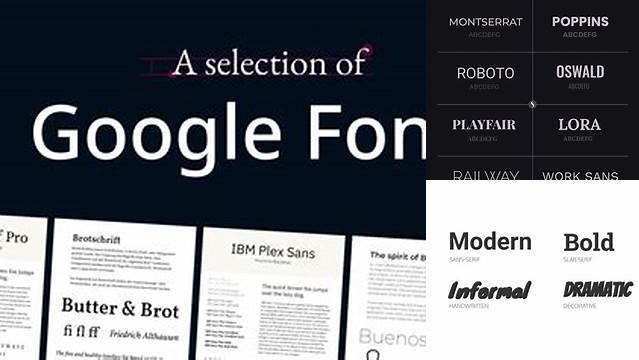
Best Google Fonts For Logos: Top Picks & Tips
Introduction: The Power of Typography in Logo Design
When it comes to logo design, the typography you choose plays a pivotal role in shaping your brand's identity. It's not just about selecting a font that looks pretty; it's about choosing a typeface that communicates your brand's personality, values, and message. Think of your logo as the face of your company, and the font as the expression on that face. A well-chosen font can convey professionalism, creativity, trustworthiness, or any other attribute you want your brand to embody. A poorly chosen font, on the other hand, can send the wrong message, confuse your audience, or even make your brand look unprofessional. So, guys, making the right font choice is super crucial for making a killer first impression and building a strong brand identity.
In today's digital age, Google Fonts has emerged as a treasure trove of high-quality, free-to-use fonts, making it an invaluable resource for designers and businesses alike. With hundreds of fonts to choose from, it can be overwhelming to sift through the options and find the perfect fit for your logo. But don't worry, we've got your back! This guide is designed to help you navigate the world of Google Fonts and discover some of the best typefaces for logo design. We'll explore a variety of font styles, from classic serifs to modern sans-serifs, and provide insights on how to use them effectively in your logo. Whether you're a seasoned designer or just starting out, this guide will equip you with the knowledge and inspiration you need to create a logo that truly represents your brand. We'll break down what makes a font great for logos, and then we'll dive into some specific examples that you can use for your own projects. Get ready to level up your logo game!
Choosing the right font involves considering several factors, including your brand's identity, target audience, and the overall aesthetic you want to achieve. For instance, a tech company might opt for a sleek, modern sans-serif font to convey innovation and simplicity, while a traditional law firm might prefer a classic serif font to project trustworthiness and authority. The font should also be legible and scalable, ensuring it looks good both on a large billboard and a small business card. Furthermore, you need to think about how the font pairs with other design elements, such as your logo's icon and color palette. A harmonious combination of these elements will create a cohesive and memorable brand identity. So, it's not just about picking a font you like; it's about picking a font that works for your brand and its unique needs.
Understanding Font Styles: Serif, Sans-Serif, and More
Before we dive into specific font recommendations, let's take a quick look at the different font styles you'll encounter in Google Fonts. Understanding the characteristics of each style will help you narrow down your options and make informed decisions for your logo design. The two primary categories are serif and sans-serif fonts. Serif fonts are characterized by the small decorative strokes (serifs) that extend from the ends of the letters. These fonts often convey a sense of tradition, elegance, and authority. Think of classic brands like The New York Times or Times New Roman – they exude a sense of history and credibility, right? Serif fonts are generally a solid pick for brands that want to project a sense of heritage or sophistication.
On the other hand, sans-serif fonts lack these serifs, resulting in a cleaner, more modern appearance. They're often associated with simplicity, clarity, and innovation. Brands like Google and Spotify use sans-serif fonts to convey their tech-forward, user-friendly approach. If your brand is all about being modern and accessible, a sans-serif font might be your go-to. But there's more to it than just these two categories, guys. There are also script fonts, which mimic handwriting and add a touch of personality and creativity. These are fantastic for brands that want to feel more personal and handcrafted, but they can be tricky to use in logos because they aren't always as legible at smaller sizes. Then there are display fonts, which are super stylized and designed to grab attention. Think of them as the showstoppers of the font world! Display fonts are great for making a statement, but you have to use them sparingly – they're not always the best choice for the main text of your logo.
Beyond these main categories, there are also variations within each style. For example, serif fonts can range from classic Old Style serifs to more contemporary slab serifs, each with its own unique personality. Sans-serif fonts can be geometric, humanist, or grotesque, each offering a different feel. Geometric sans-serifs are very clean and modern, while humanist sans-serifs have a bit more warmth and personality. Grotesque sans-serifs are the workhorses – reliable and clear. Understanding these nuances will help you fine-tune your font selection and ensure your logo accurately reflects your brand's identity. It's like picking the right tool for the job – understanding what each font brings to the table is the first step to a killer logo.
Top Google Fonts for Logos: Our Recommendations
Now that we've covered the basics of font styles, let's dive into some specific Google Fonts that are particularly well-suited for logo design. We've curated a list of fonts that offer a balance of aesthetics, legibility, and versatility, ensuring they can work across a wide range of industries and brand identities. Our first pick is Montserrat, a geometric sans-serif font that exudes modernity and sophistication. It's incredibly versatile, working well for tech startups, creative agencies, and everything in between. Its clean lines and balanced proportions make it highly legible, even at small sizes, which is crucial for logo design. Montserrat is like the Swiss Army knife of fonts – it can handle anything you throw at it!
Next up is Oswald, another sans-serif font that offers a slightly more condensed and impactful appearance. Oswald is great for logos that need to make a bold statement, such as sports brands or fitness companies. Its strong, assertive letterforms convey confidence and energy. But don't think it's only for the sporty types – Oswald also works well for any brand that wants to project strength and reliability. If you want your logo to pack a punch, Oswald is a fantastic choice. For those seeking a more classic and elegant feel, Playfair Display is an excellent serif option. This font has a high contrast between thick and thin strokes, giving it a sophisticated and refined look. It's perfect for luxury brands, fashion labels, or any business that wants to convey a sense of timeless elegance. Playfair Display is like the little black dress of fonts – always stylish and always appropriate.
If you're looking for something a bit more unique and playful, Poppins is a geometric sans-serif that offers a friendly and approachable vibe. Its rounded letterforms and clean lines make it a great choice for brands that want to appear welcoming and accessible. Poppins is like that friendly neighbor who always has a smile – it just makes you feel good! And lastly, we have Roboto, a widely used sans-serif font that strikes a perfect balance between modernity and readability. It's a versatile workhorse that works well in a variety of contexts, making it a reliable choice for any logo. Roboto is like the dependable friend you can always count on – it's never going to let you down. These are just a few examples, of course, and Google Fonts has tons of other great options. The key is to explore and experiment until you find the perfect fit for your brand!
Font Pairing: Creating Visual Harmony in Your Logo
Choosing the right font for your logo is only half the battle. You also need to consider font pairing, which involves selecting a secondary font to complement your primary logo font. This is crucial for creating visual harmony and ensuring your brand's message is conveyed effectively across different platforms and materials. A well-executed font pairing can elevate your logo from good to great, while a poor pairing can create visual dissonance and undermine your brand's identity. It's like putting together an outfit – you want the different pieces to complement each other and create a cohesive look.
When it comes to font pairing, the general rule of thumb is to create contrast. This means pairing a serif font with a sans-serif font, or a bold font with a lighter font. The contrast helps to create visual interest and hierarchy, making your logo more engaging and readable. For example, you might pair Playfair Display (a sophisticated serif) with Montserrat (a clean sans-serif) for a logo that feels both elegant and modern. Or, you could pair Oswald (a bold sans-serif) with Roboto (a versatile sans-serif) for a logo that feels strong and approachable. But contrast isn't the only thing to think about, guys. You also want to make sure the fonts share some common characteristics, such as similar proportions or x-heights (the height of the lowercase letters). This will help to create a sense of unity and coherence in your logo. It's like finding two people who are different but share some core values – they balance each other out but still feel like they belong together.
Another important aspect of font pairing is considering the context in which your logo will be used. For instance, if your logo will primarily appear on digital platforms, you'll want to choose fonts that are highly legible on screens. This might mean opting for fonts with open letterforms and generous spacing. If your logo will be used in print materials, you have a bit more flexibility, but you still need to ensure the fonts are legible at different sizes. Ultimately, the best way to master font pairing is to experiment and see what works best for your brand. Try out different combinations, get feedback from others, and don't be afraid to break the rules if it feels right. Remember, the goal is to create a logo that is not only visually appealing but also effectively communicates your brand's message. It's all about finding that sweet spot where aesthetics and functionality meet.
Practical Tips for Using Google Fonts in Logo Design
Now that we've explored some of the best Google Fonts for logos and discussed the principles of font pairing, let's delve into some practical tips for using these fonts effectively in your logo design. One of the most important things to consider is legibility. Your logo font should be easily readable, even at small sizes. This means avoiding overly decorative or intricate fonts that can become blurry or distorted when scaled down. Remember, your logo might appear on business cards, social media profiles, and even mobile apps, so it needs to be legible in a variety of contexts. It's like making sure everyone can understand you, no matter how quiet or noisy the room is.
Another key tip is to consider the weight and style of your font. A bold font can convey strength and confidence, while a lighter font can evoke a sense of elegance and sophistication. Similarly, an italic font can add a touch of personality and flair, while a regular font can project a more professional and grounded image. Experiment with different weights and styles to see what best reflects your brand's identity. Think of it like choosing the right tone of voice – you want your font to speak in a way that resonates with your audience. Don't forget to pay attention to kerning and tracking. Kerning refers to the spacing between individual letters, while tracking refers to the overall spacing between all letters in a word or phrase. Adjusting these settings can significantly impact the legibility and visual appeal of your logo. Too little spacing can make the letters feel cramped and difficult to read, while too much spacing can make the words look disjointed. It's like finding the perfect rhythm in a song – the spacing needs to feel just right.
Finally, don't be afraid to customize your font. Many designers use font editing software to tweak existing fonts and create unique logo types. This might involve adjusting the letterforms, adding custom ligatures (where two letters are joined together), or even creating a completely new font from scratch. Customizing your font can help your logo stand out from the crowd and create a truly distinctive brand identity. It's like putting your own spin on a classic recipe – you're taking something familiar and making it your own. But remember, customization should be done thoughtfully and strategically. The goal is to enhance the font's character, not to make it unrecognizable. It's a balancing act, but when done well, it can make all the difference.
Conclusion: Making the Right Font Choice for Your Brand
In conclusion, choosing the best logo fonts in Google Fonts is a crucial step in building a strong and recognizable brand identity. The font you select plays a significant role in communicating your brand's personality, values, and message to your target audience. By understanding the different font styles, exploring the vast library of Google Fonts, and following the tips and guidelines outlined in this guide, you can confidently make the right font choice for your brand. Remember, it's not just about picking a font that looks pretty; it's about choosing a font that works for your brand and its unique needs. Think of your logo font as the voice of your brand – it should be clear, consistent, and authentic.
We've covered a lot of ground in this guide, from understanding font styles to mastering font pairing and customizing your fonts. We've explored some of the best Google Fonts for logos, including Montserrat, Oswald, Playfair Display, Poppins, and Roboto. But remember, this is just a starting point. The world of typography is vast and ever-evolving, and there are countless other great fonts out there waiting to be discovered. The key is to keep learning, keep experimenting, and keep pushing your creative boundaries. Don't be afraid to try new things and break the rules – sometimes the most unexpected combinations can lead to the most stunning results. It's like exploring a new city – you never know what hidden gems you might find if you just venture off the beaten path.
Ultimately, the best logo font is the one that perfectly captures the essence of your brand. It's the font that makes you feel excited and proud, the font that resonates with your audience, and the font that helps you achieve your business goals. So, take your time, do your research, and trust your instincts. With a little bit of knowledge and a lot of creativity, you can create a logo that truly represents your brand and makes a lasting impression. It's a journey, not a destination, and the rewards are well worth the effort. Cheers to finding the perfect font and building a brand that shines!